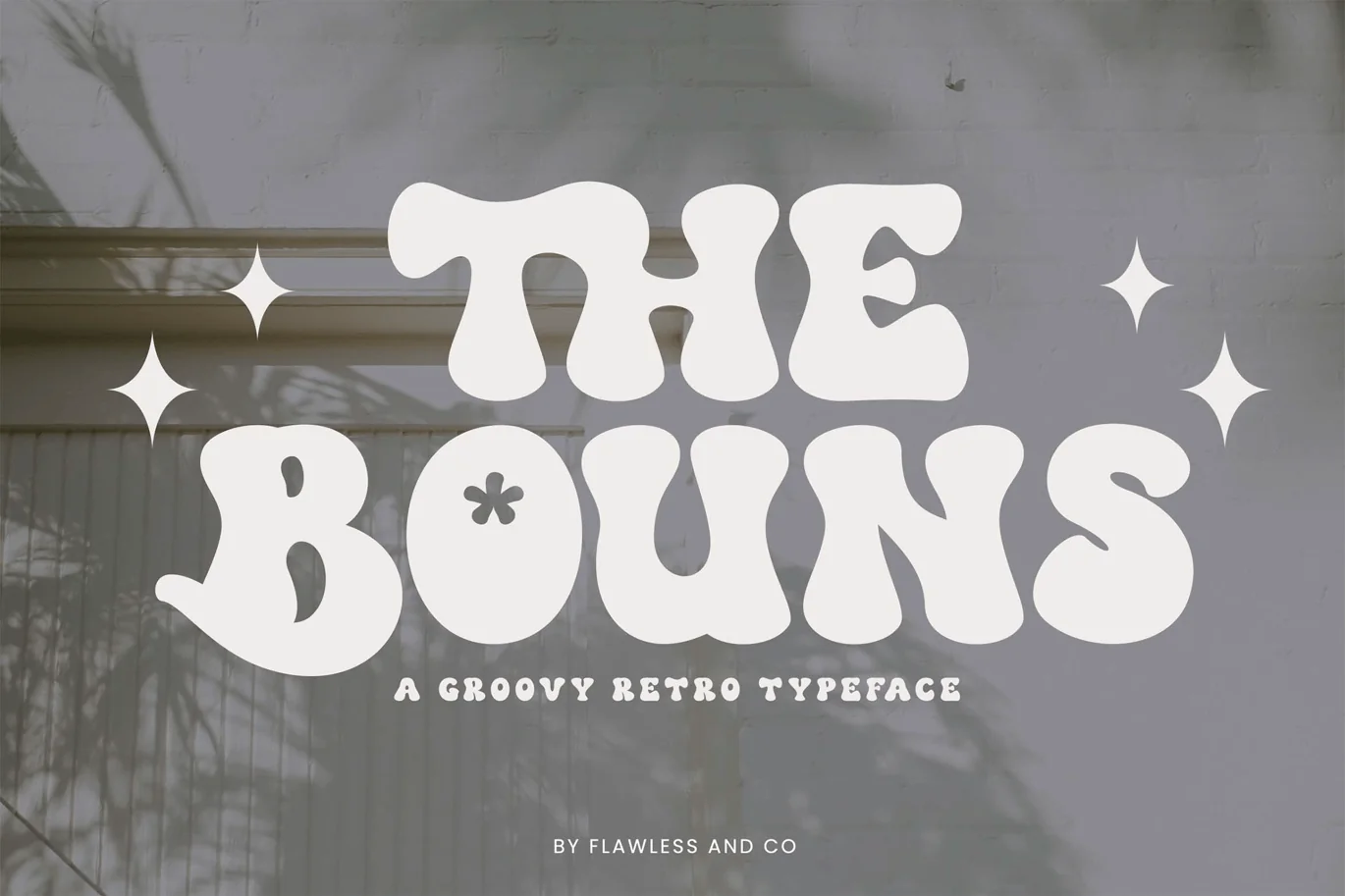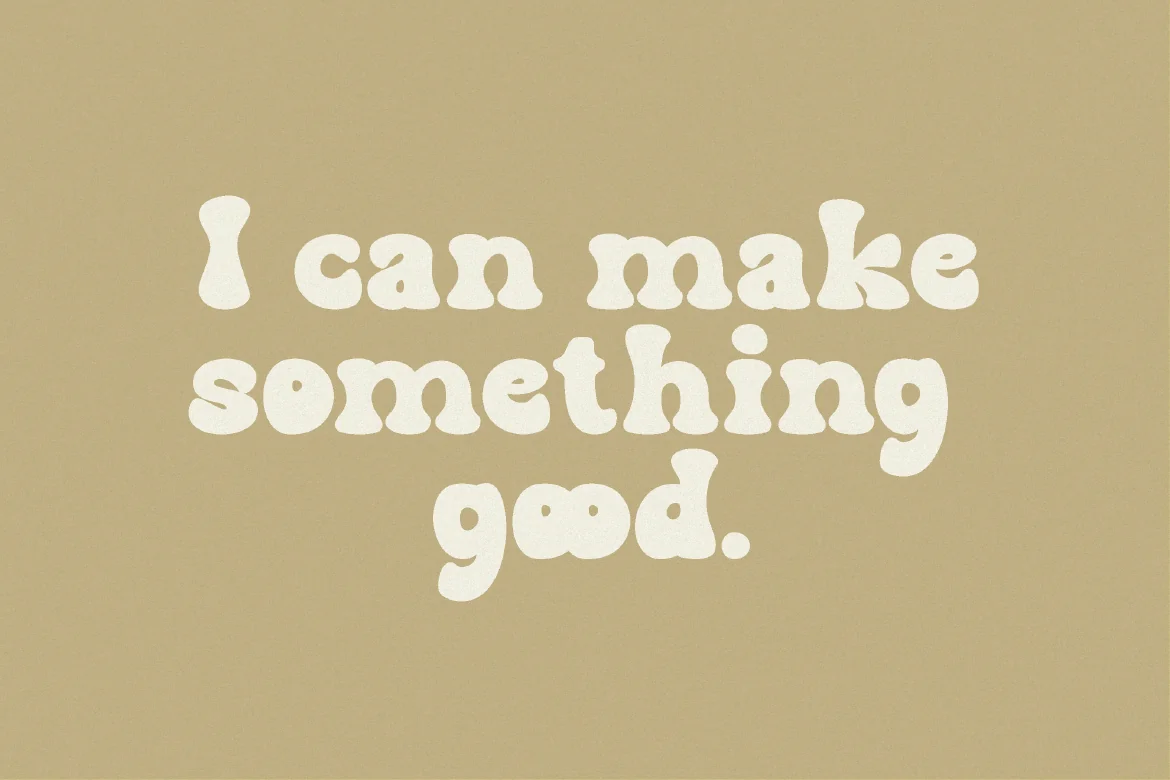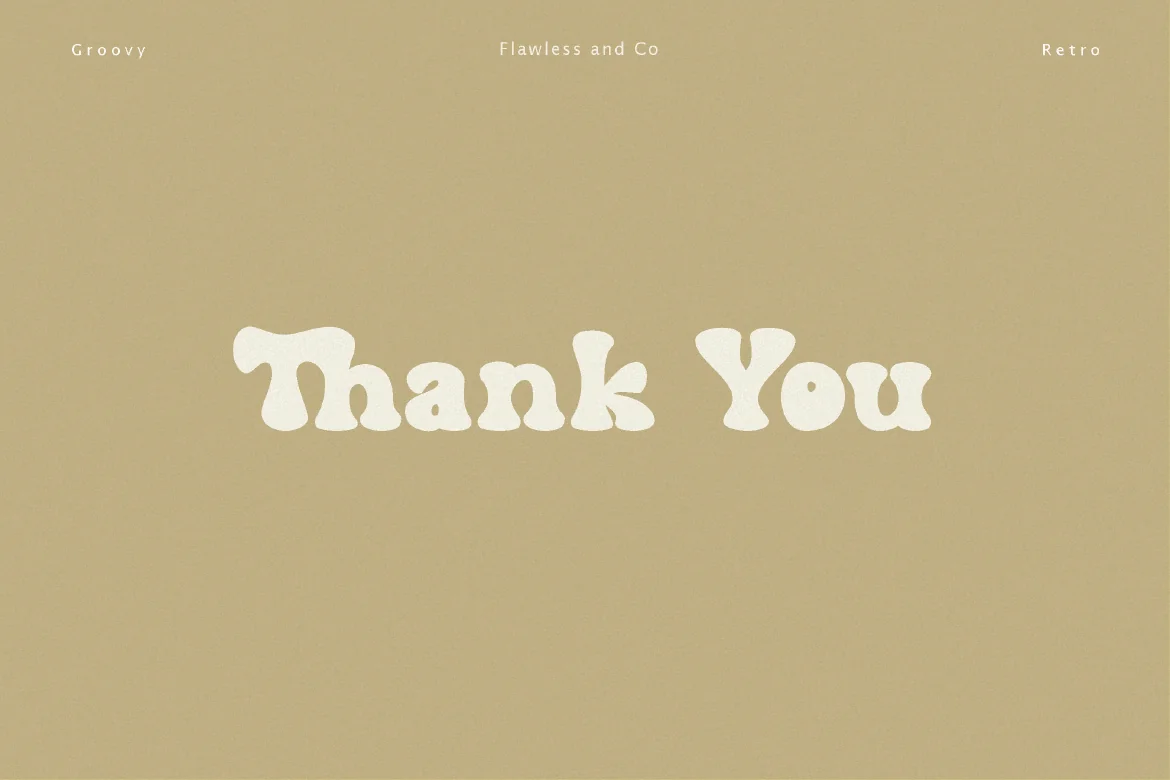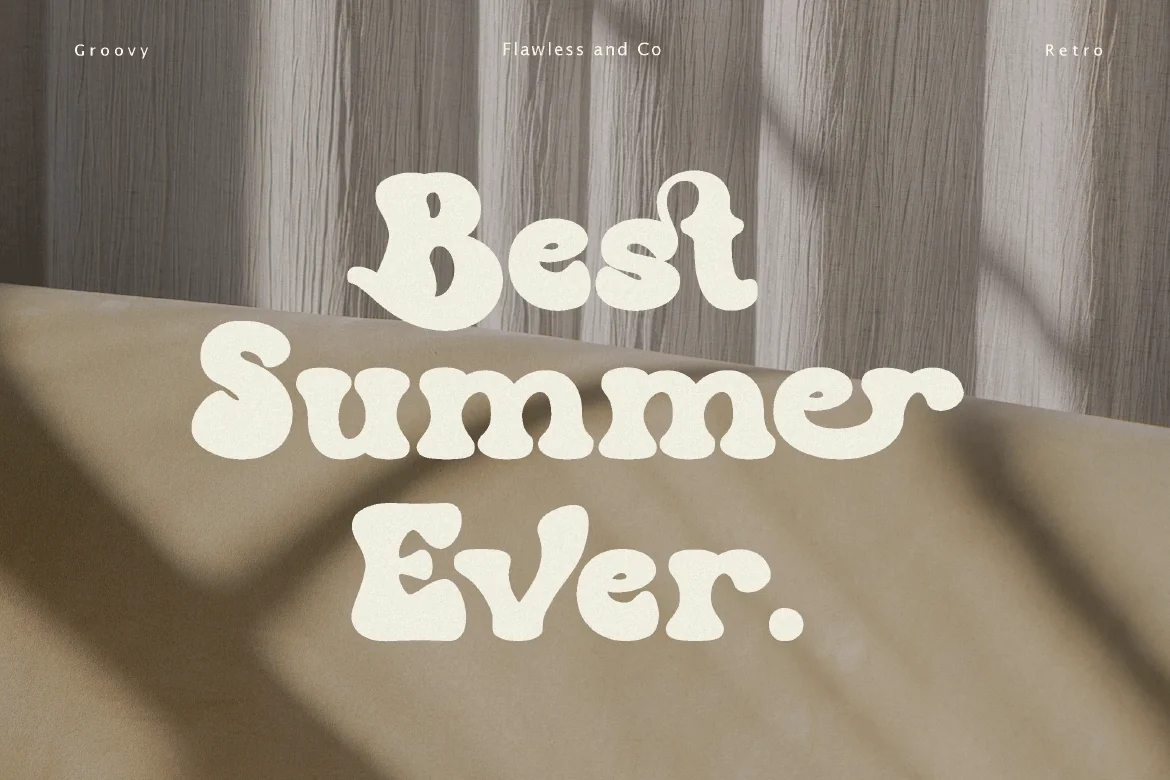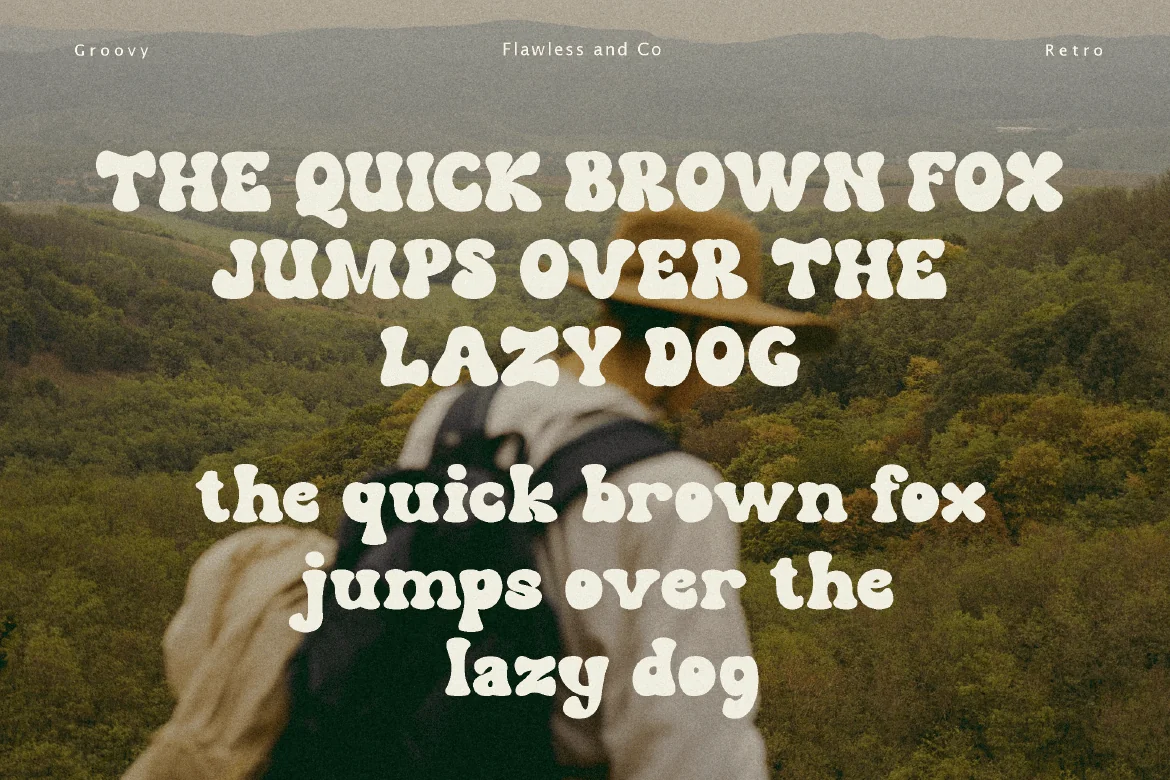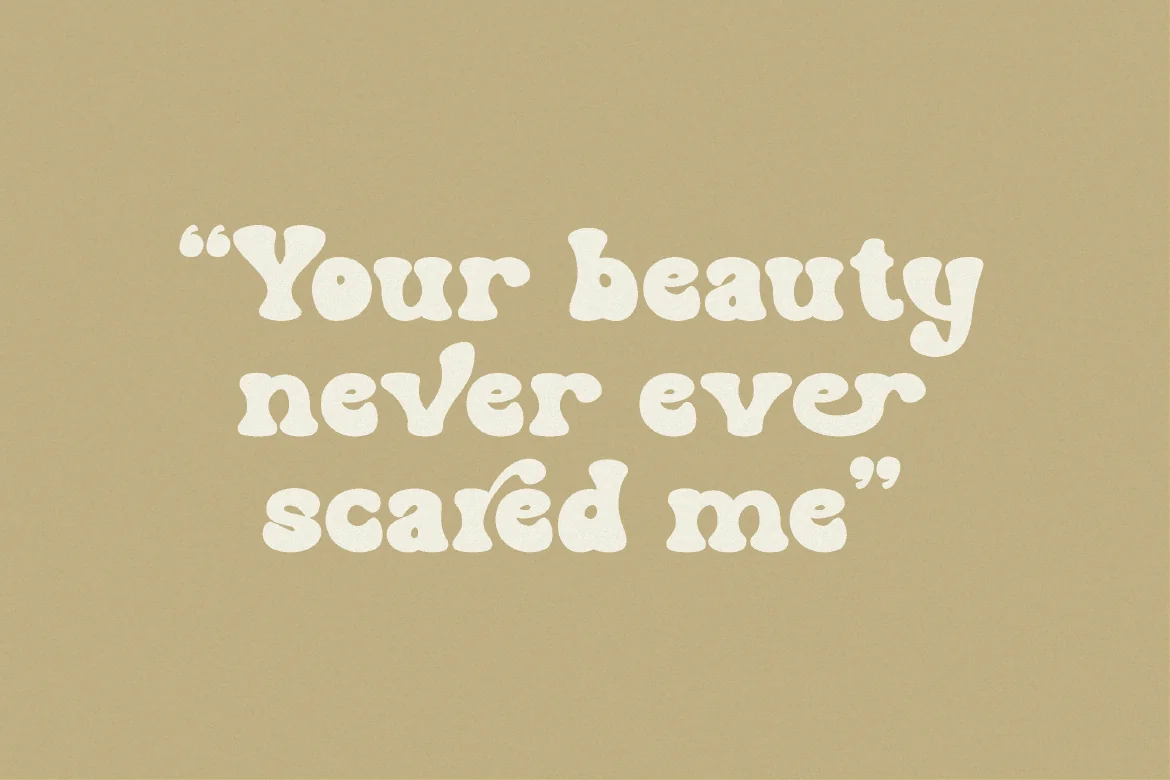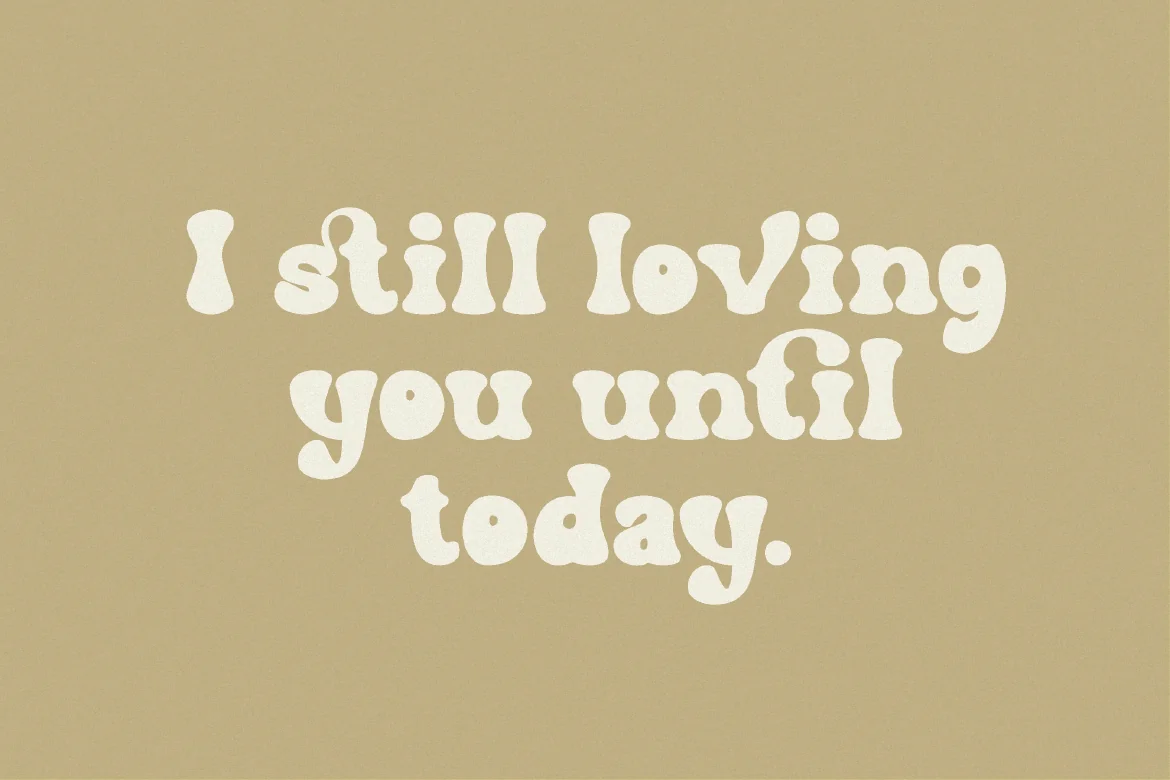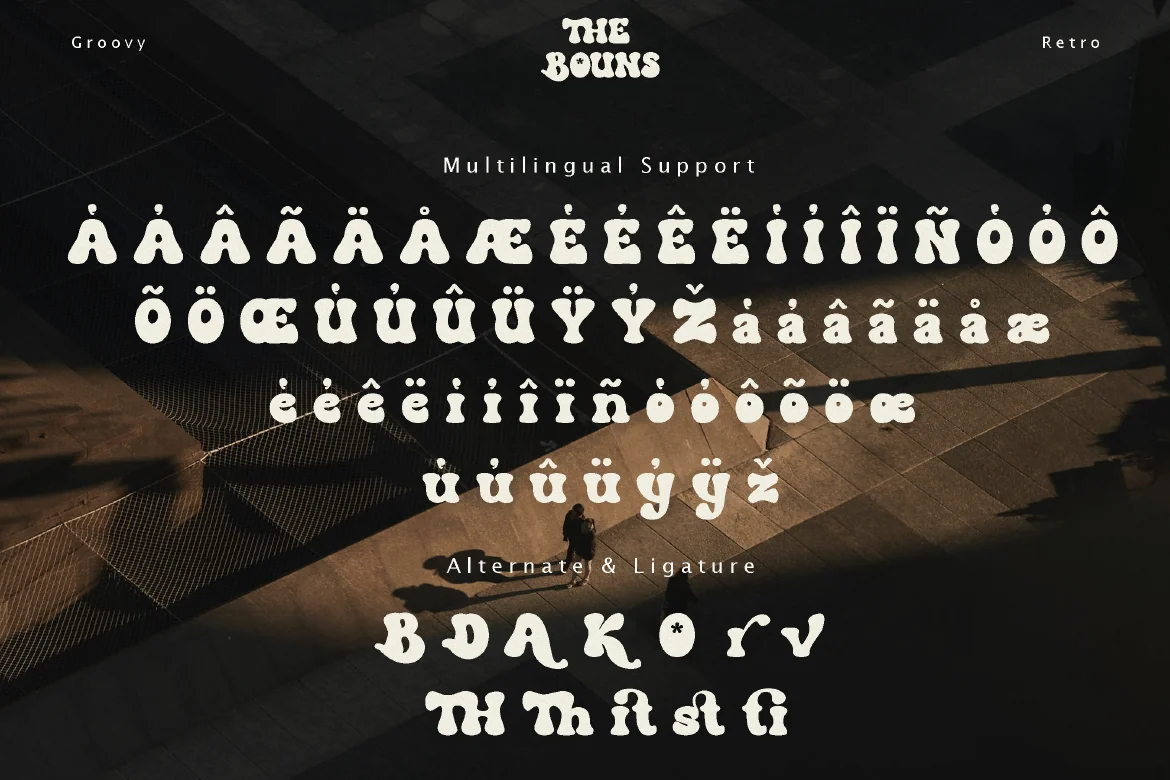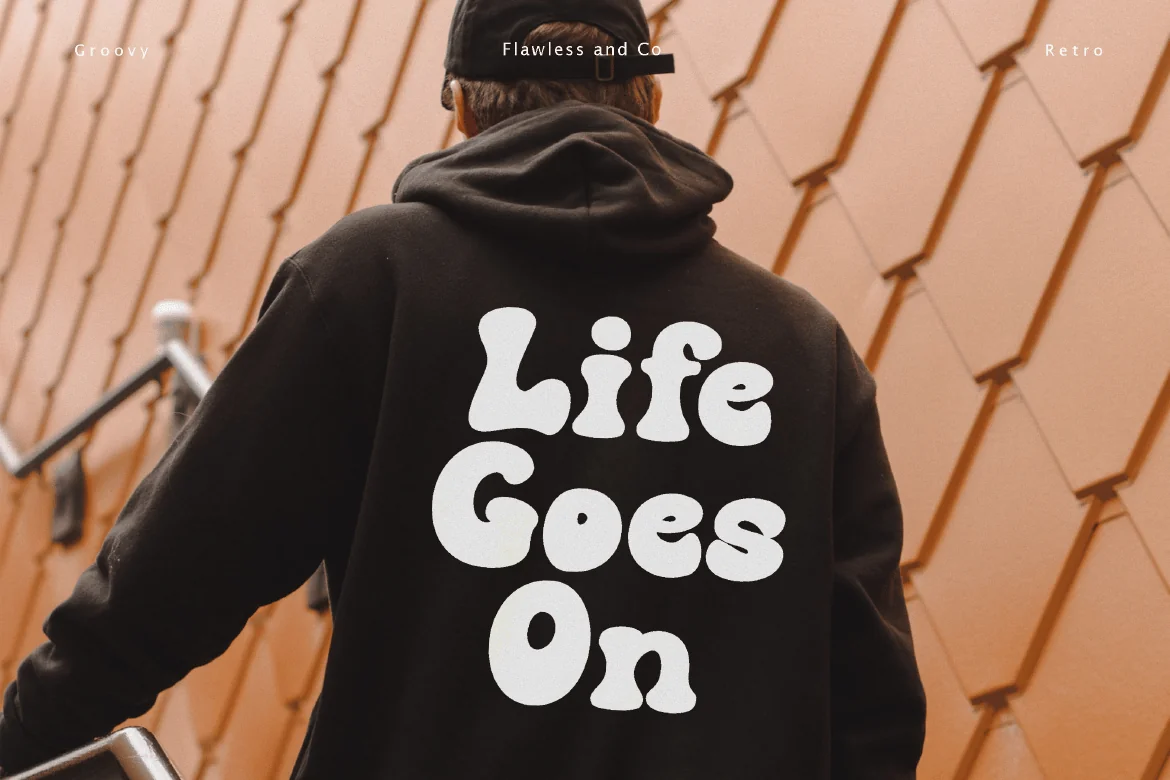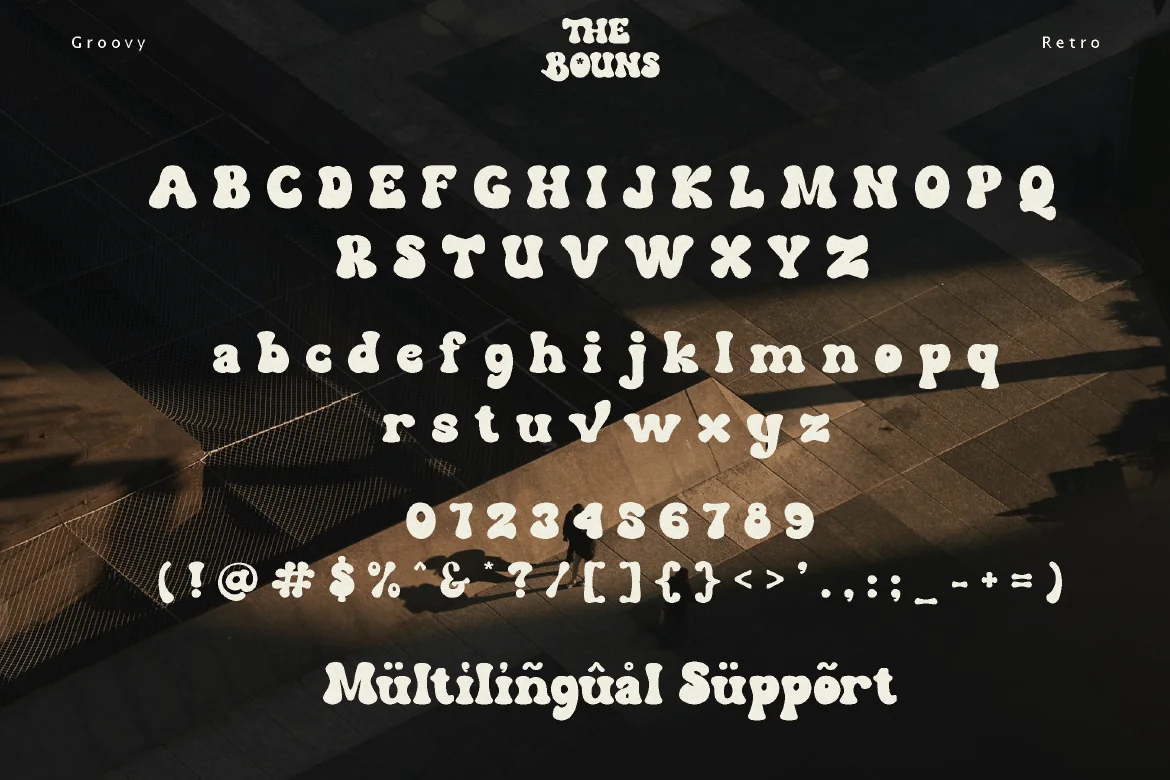
The Bouns – Groovy retro Font
The Bouns – Modern Boho Retro Font
introducing our new “The Bouns” Modern Retro with Fun and Elegant Style is perfect for branding, logos, invitation, master heads, and more.
Alternate Character